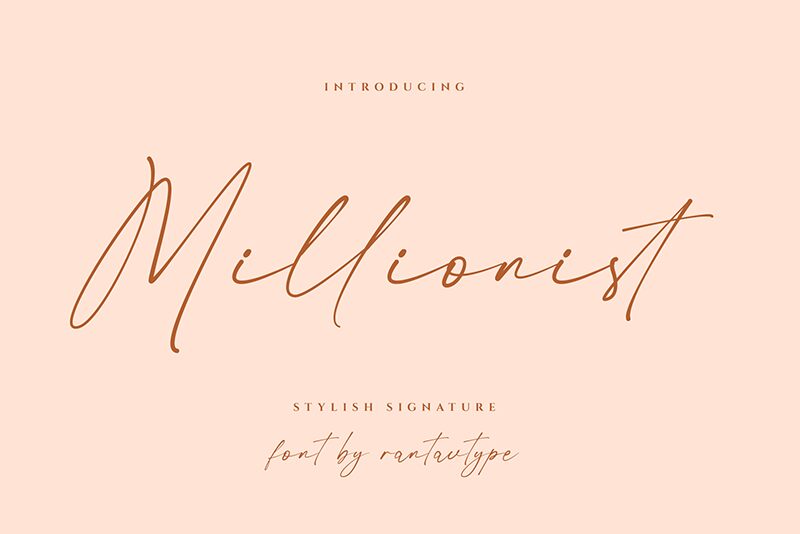
Millionist
Millionist font by RantautypeStudio is a free handwritten font with an elegant, stylish, and beautiful appearance. The linear typography is fluid with smooth curves on each letter that create a graceful flow. It carries an authentic handwriting look suited for artistic projects where the natural signature effect is required in a fast-paced manner.
Use Millionist in invitations, social media posts, posters, leaflets, event cards, shirts/clothing branding concepts, logos/monograms & signatures. Other use cases include websites headings or as overlay text on blogs where beauty dominates graphic design whether it be banners or images.